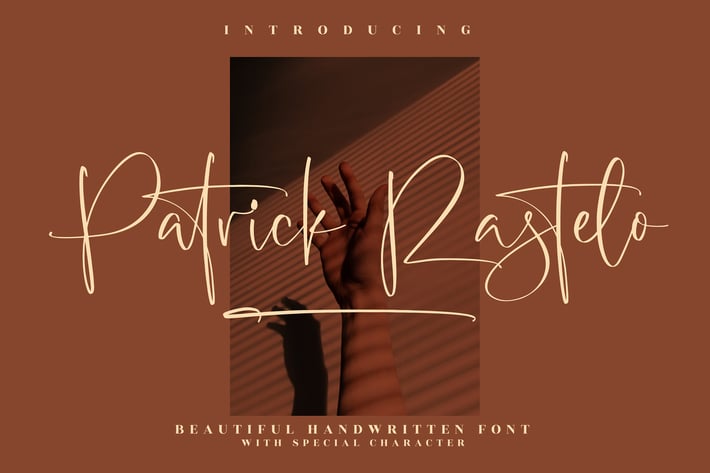
Patrick Rastelo Handwritten Font
Patrick Rastelo is a beautiful handwritten font featuring delicate strokes and refined curves. Its elegant and natural flow makes it perfect for adding a personal yet sophisticated touch to your designs. With its unique ligatures and stylish alternates, Patrick Rastelo is designed to elevate branding, invitations, and creative projects with charm and grace.
+ Elegant handwritten style
+ Uppercase, lowercase, numbers & punctuation
+ Special characters & ligatures
+ Multilingual support
+ Wedding invitations & stationery
+ Branding & logo design
+ Social media posts & quotes
+ Fashion & beauty projects
+ Greeting cards & thank you notes
+ Packaging & product labels
Add a touch of elegance and personality to your designs with Patrick Rastelo — a handwritten font that speaks sophistication in every stroke.